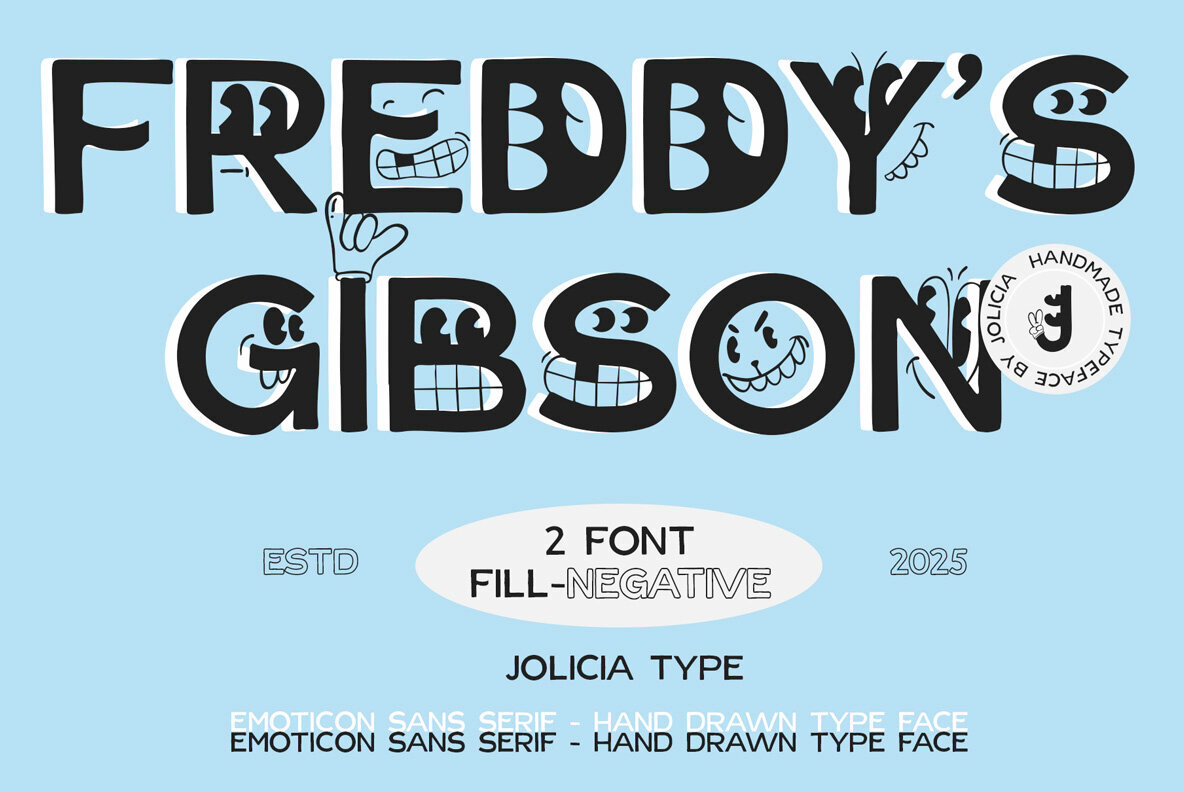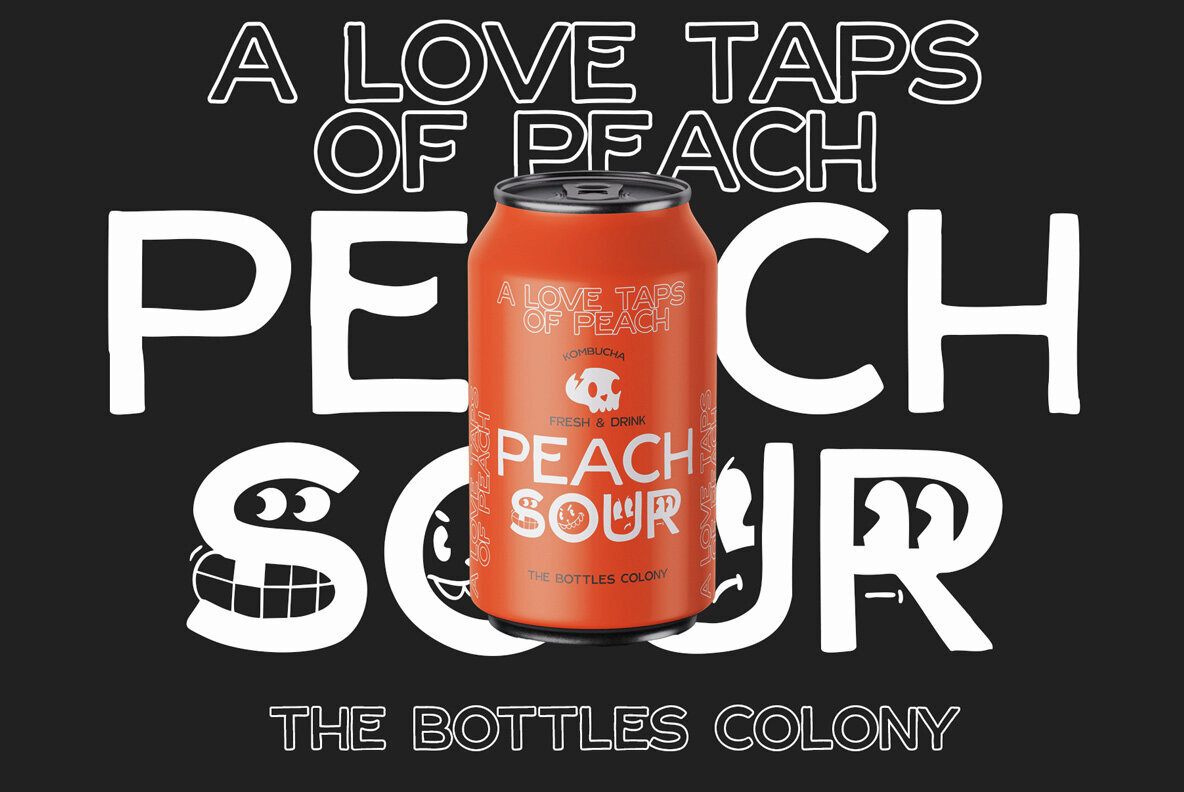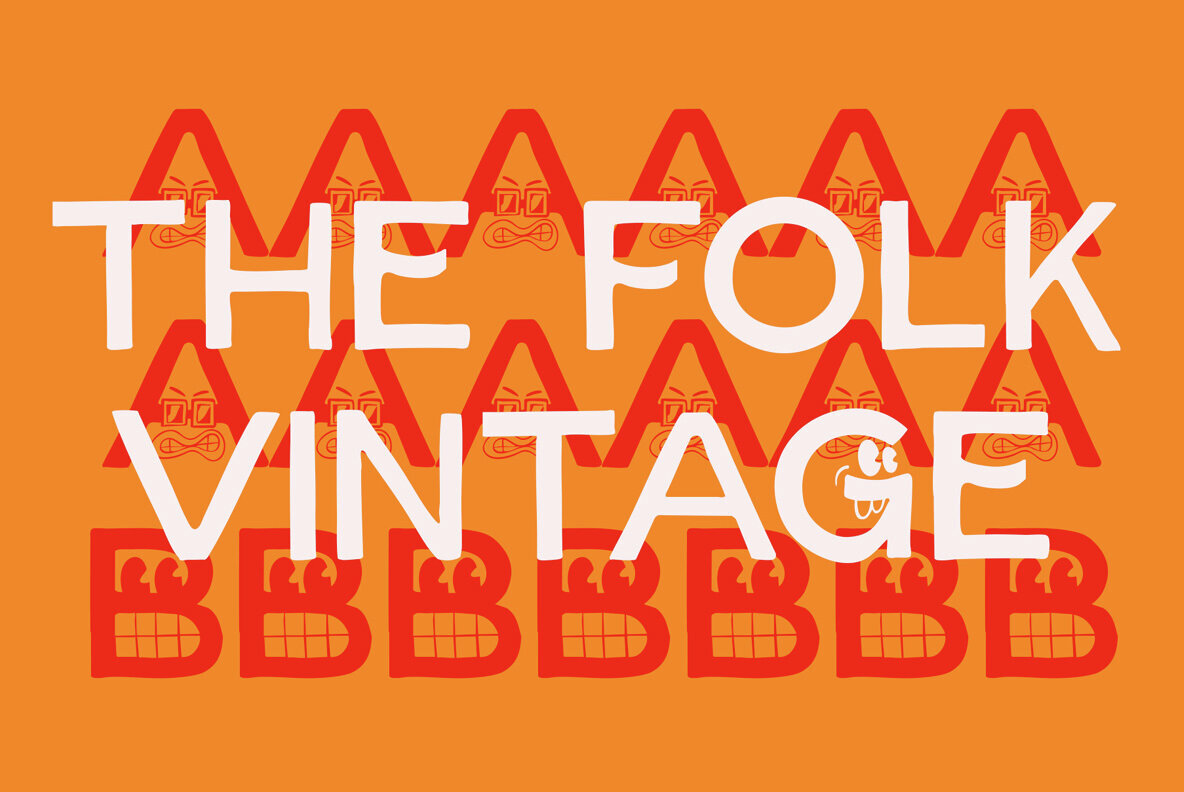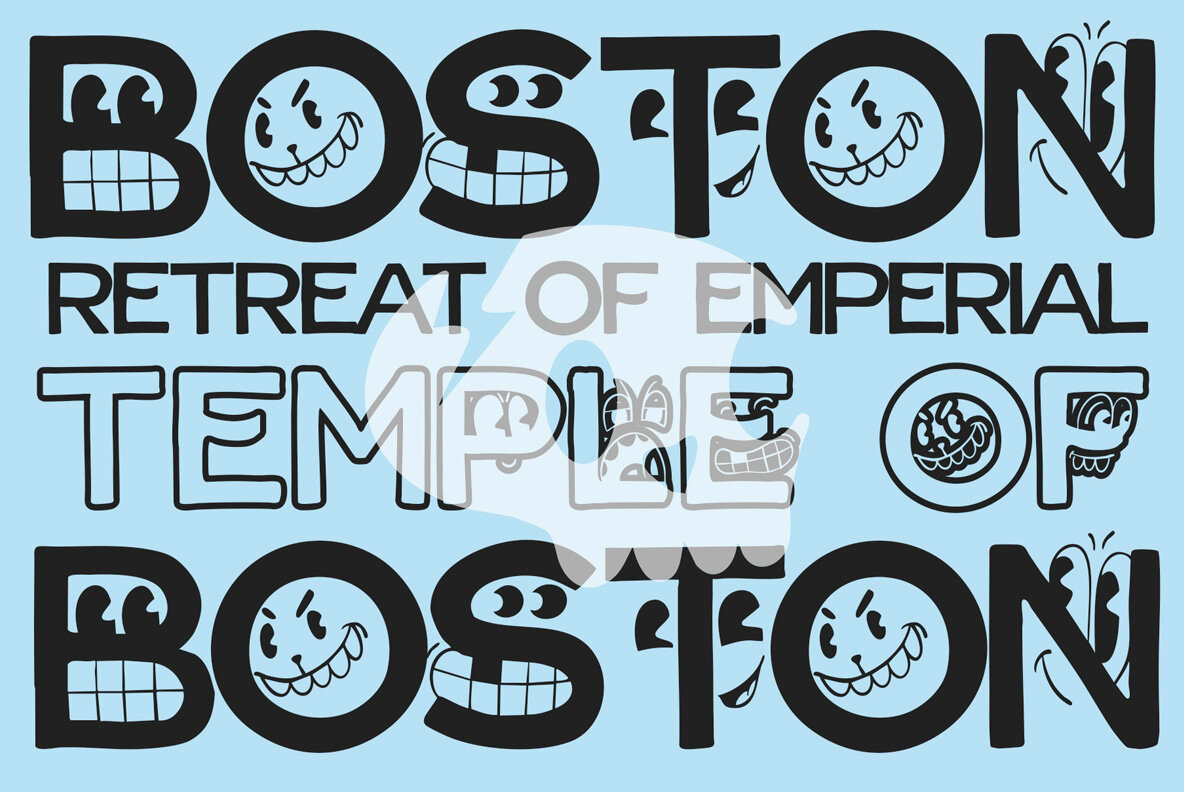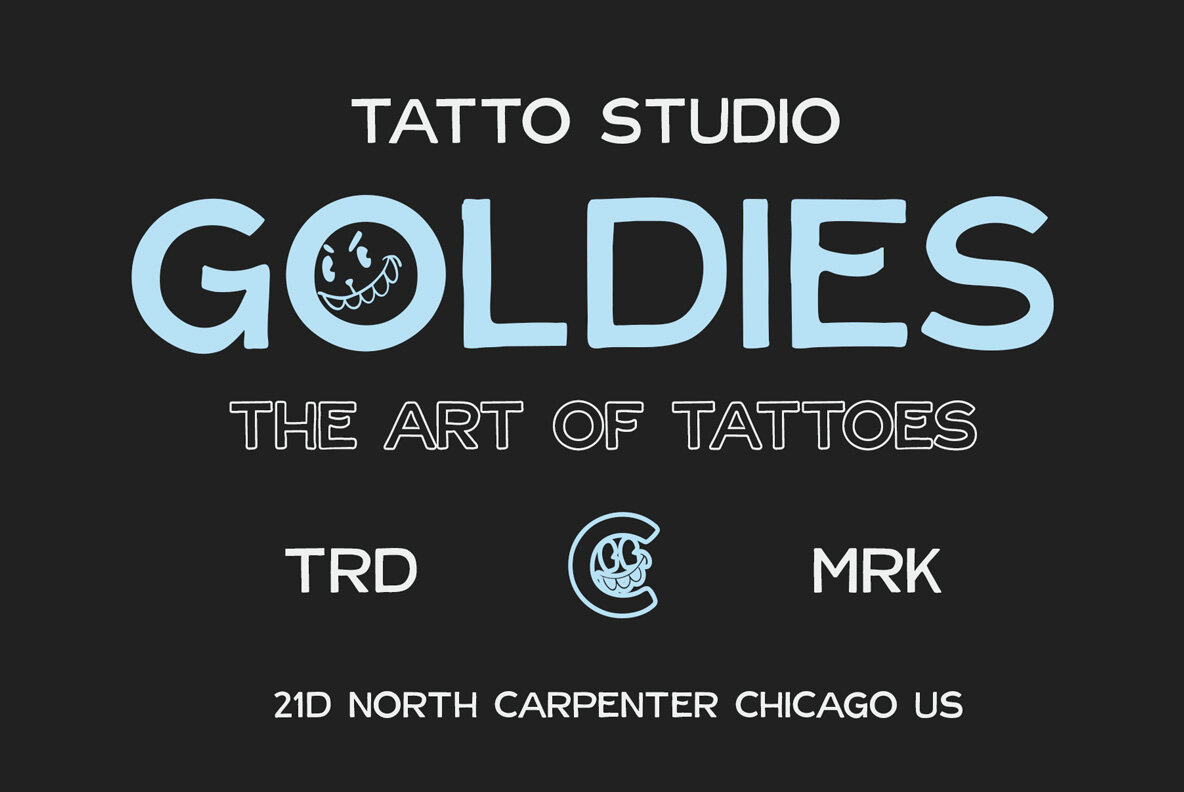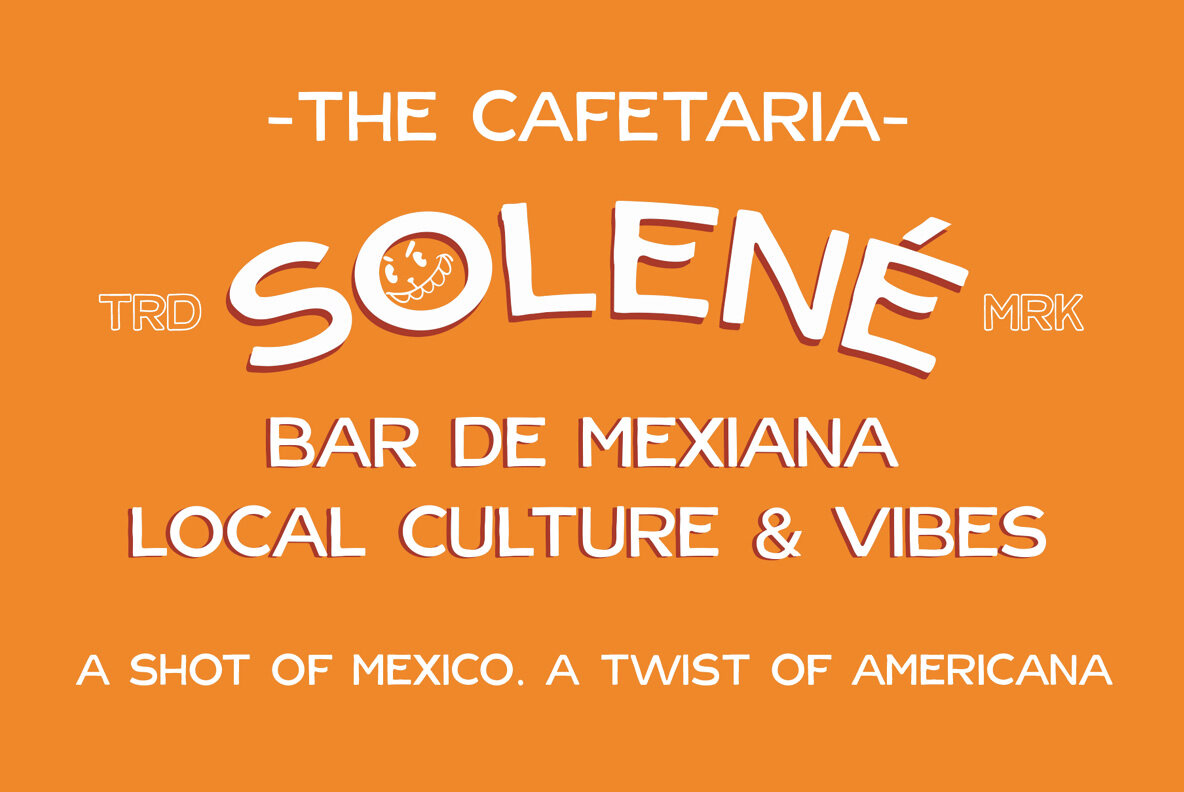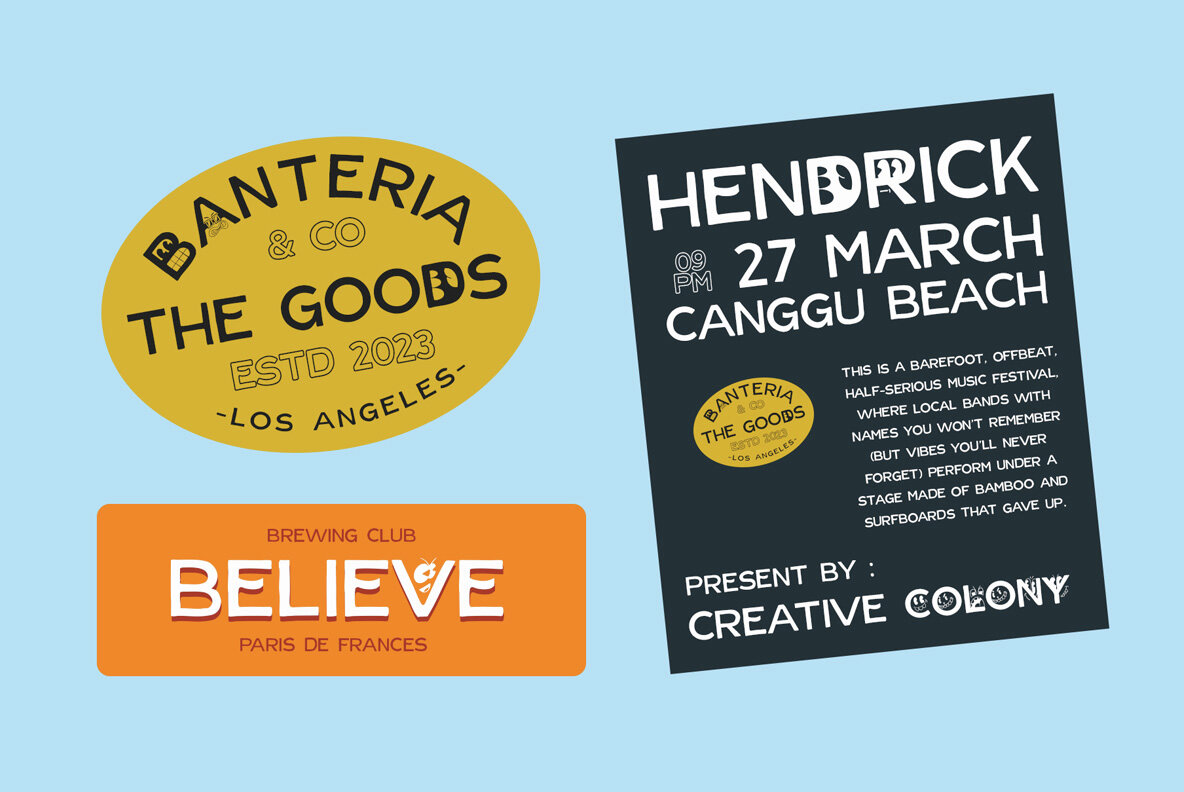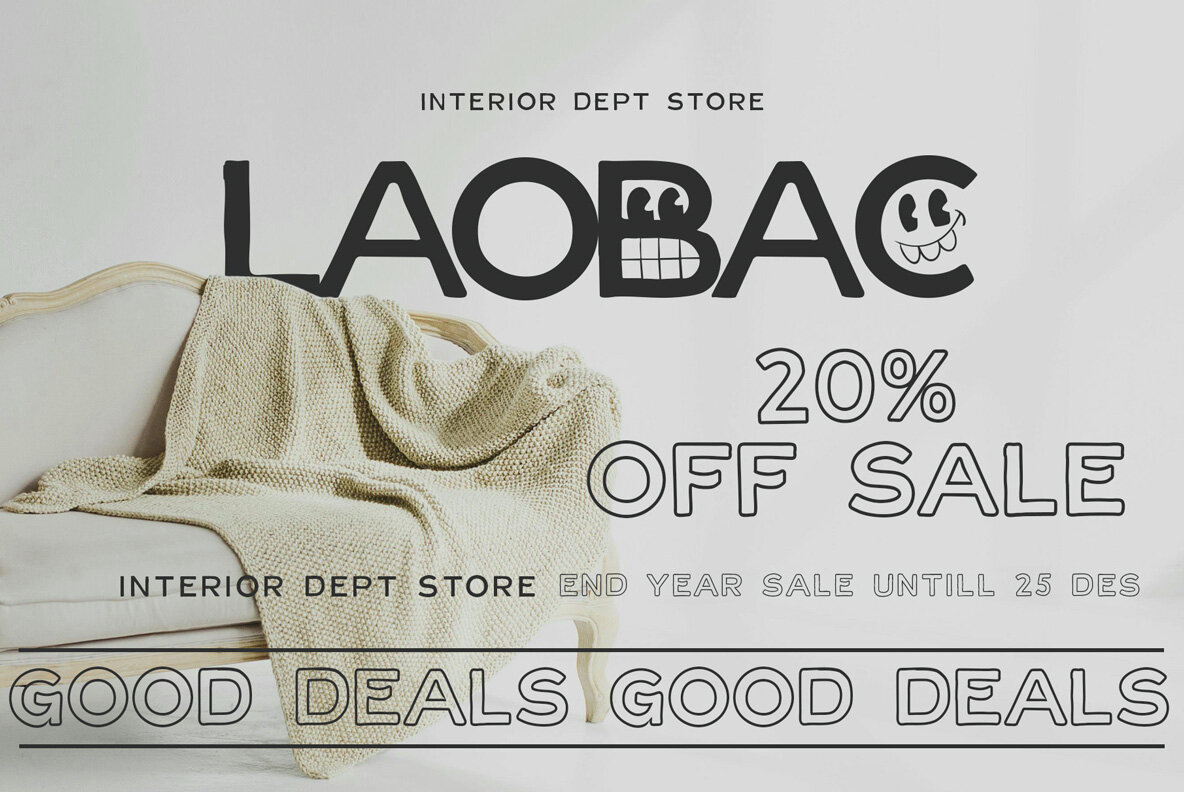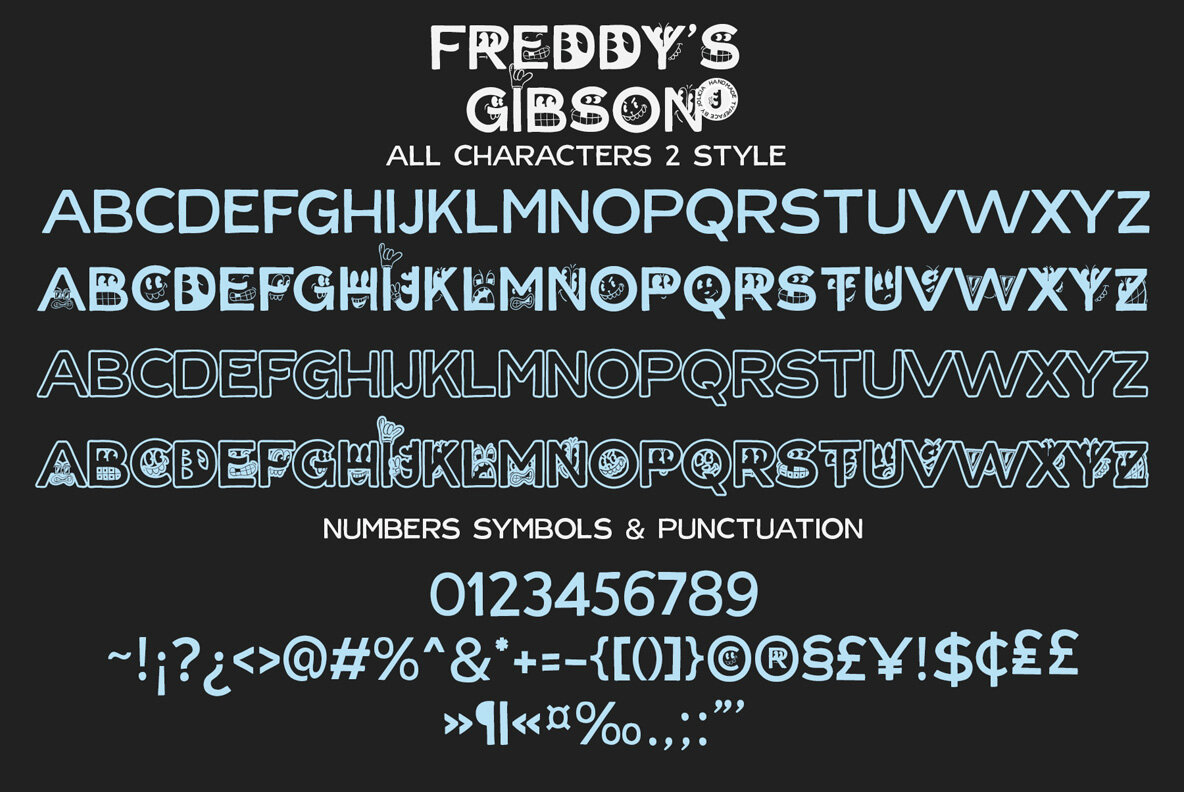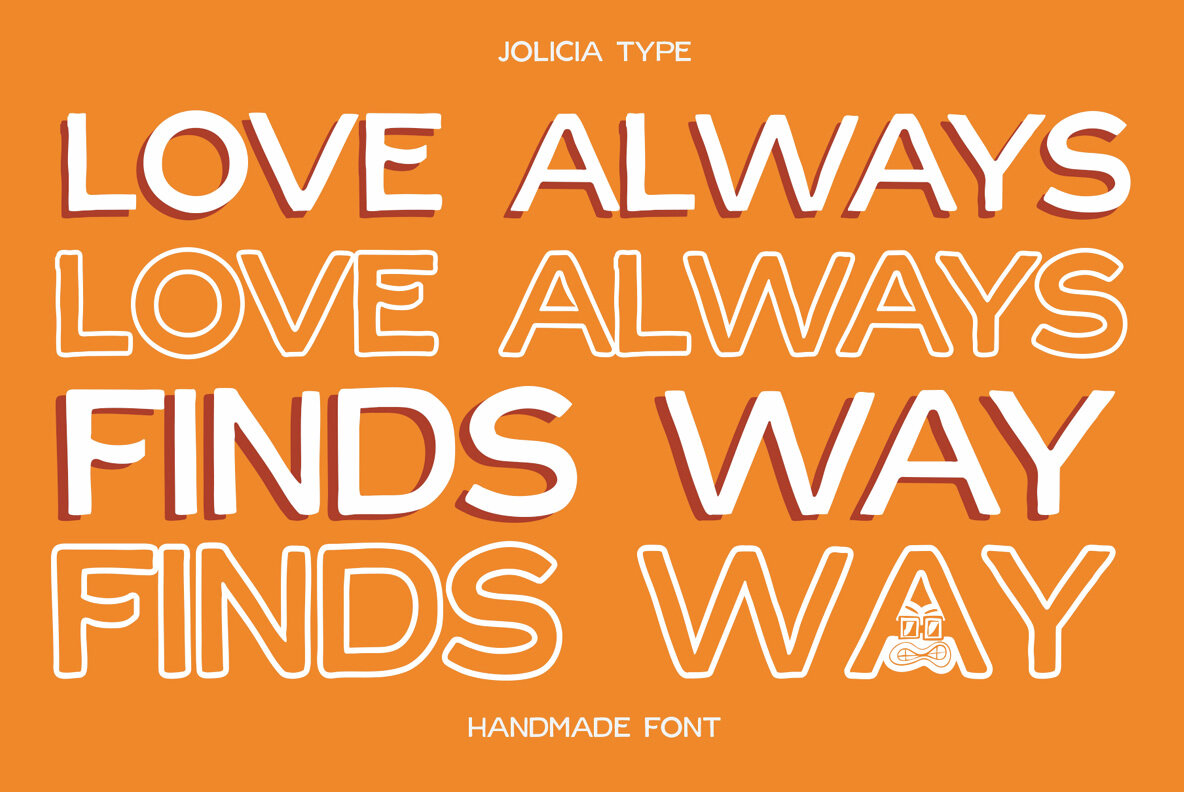
Freddy Gibson Font
Freddy Gibson
Freddy Gibson Negative
Freddy Gibson presents a sans serif font with a distinctly organic touch. Each hand-drawn stroke imbues the typeface with an authentic look, offering an approachable character ideal for branding, packaging, and creative displays. Freddy Gibson stands out with its playful lowercase set, where select characters showcase expressive, emoji-like details. These subtle yet whimsical elements breathe life and personality into your typography, rendering it both readable and memorable. Freddy Gibson offers a bold, human-centered design, making it an excellent choice for projects that prioritize fun, emotion, and uniqueness.Freddy Gibson: A Playful Sans Serif with Personality